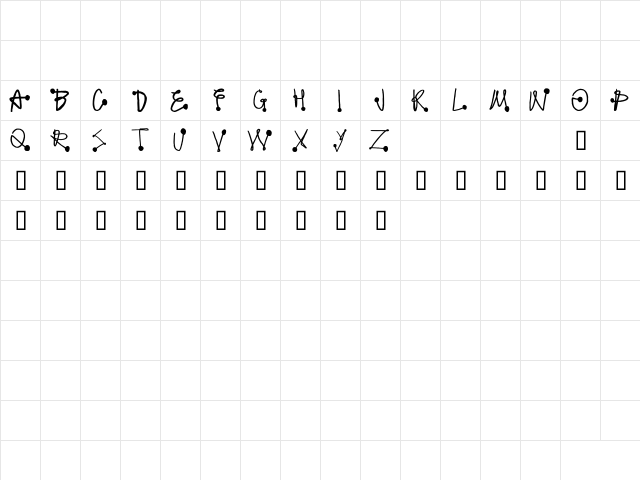
Protonic Feelers Regular
Design Context for Protonic Feelers Typeface
Protonic Feelers is a composed and adaptable typeface that performs quietly and consistently across a wide range of design contexts.